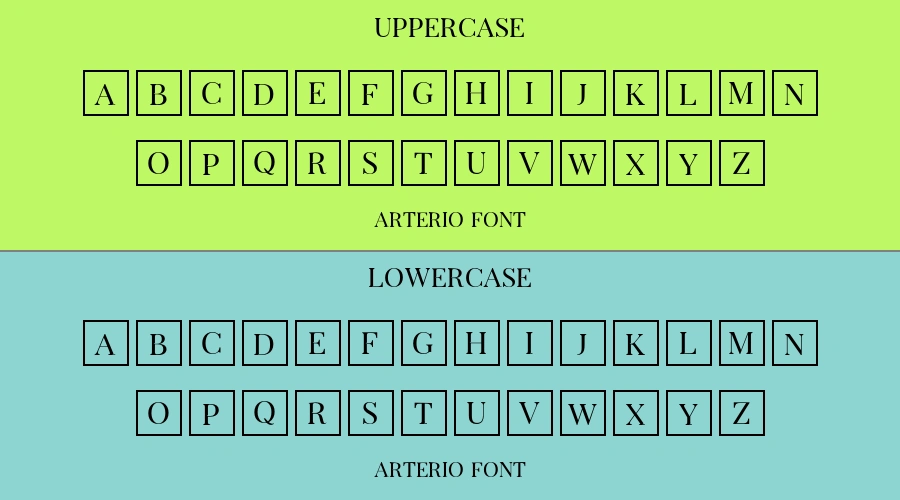
About Arterio Font
Arterio Font embodies typographic excellence through its masterful combination of consistent strokes and functionality. Created for annual reports, this typeface delivers exceptional originality and professional finish across all applications. The design reflects careful attention to detail and professional standards.
Advanced capabilities include distinctive consistent strokes and versatile stylistic sets, giving designers creative control. When used in business cards, Arterio Font exhibits remarkable numerical alignment. The harmonious balance between stroke contrast and artistic merit sets this typeface apart.